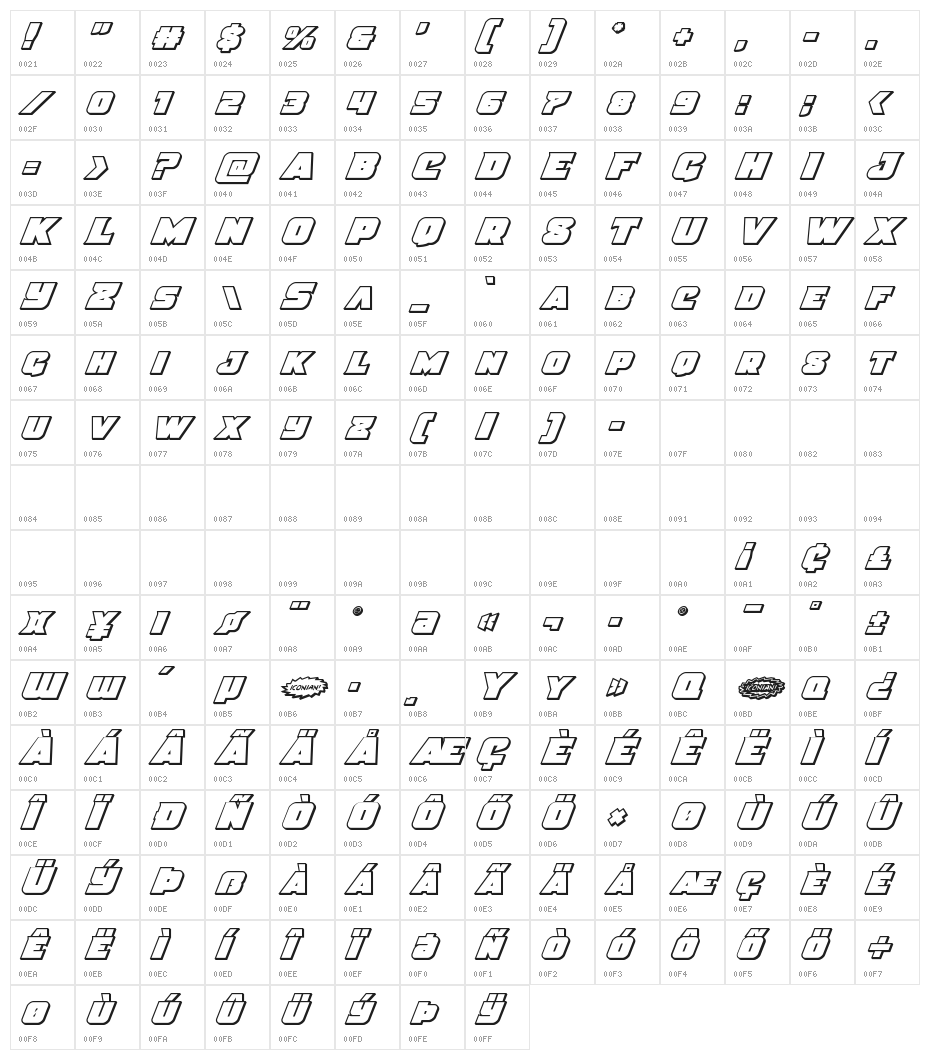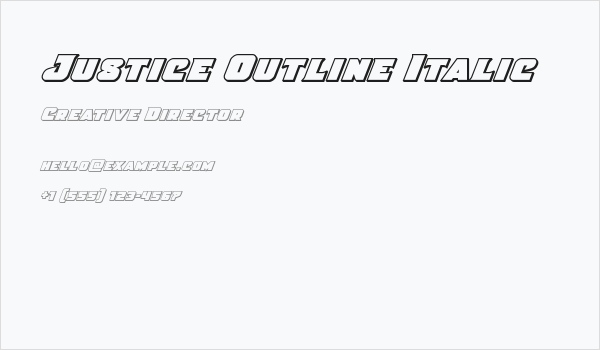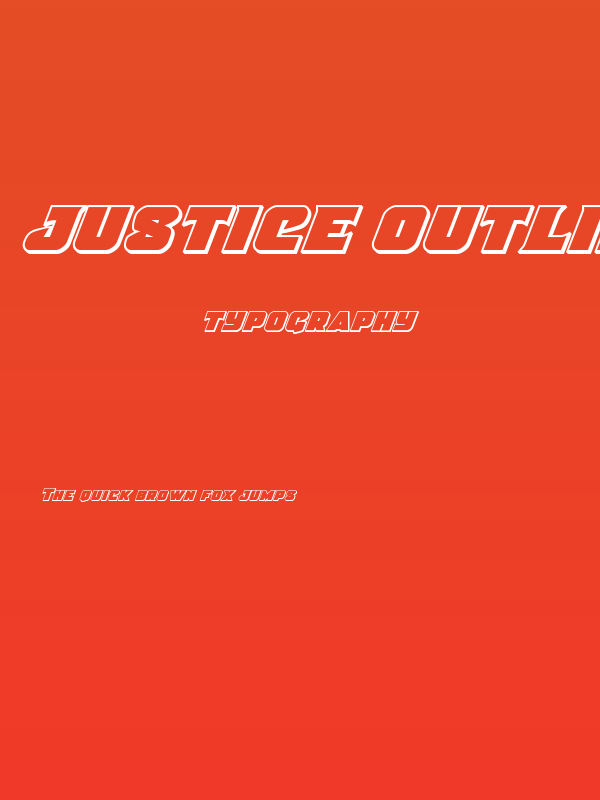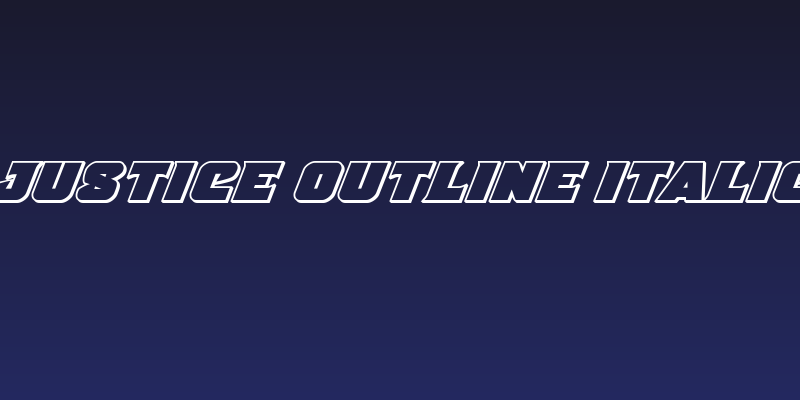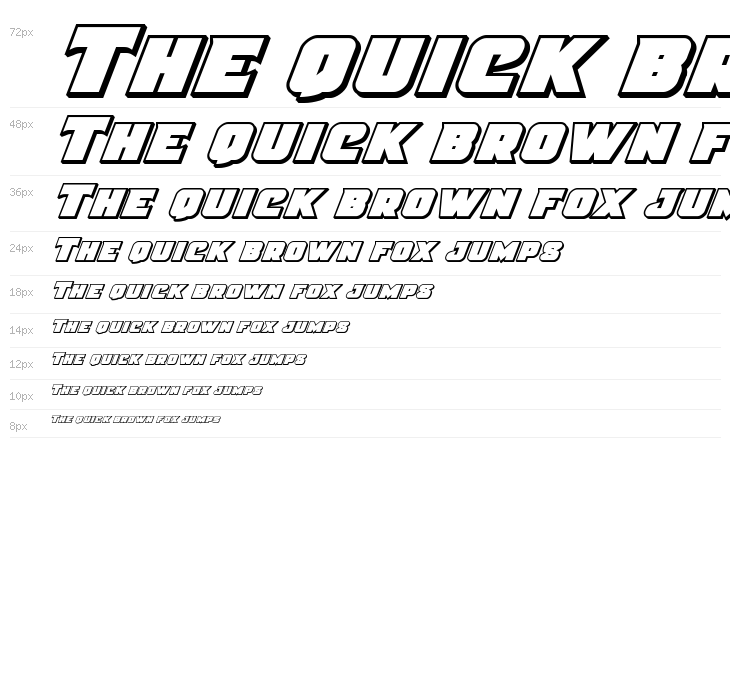
Justice Outline Italic Font
Justice Outline Italic Description
This font features a bold, italicized style with a distinctive outline that gives it a dynamic and impactful appearance. The characters are designed with a strong geometric structure, providing a sense of movement and energy. The uppercase letters are particularly striking, with sharp angles and clean lines that create a modern and assertive look. The numbers and special characters maintain this bold aesthetic, ensuring consistency across all elements. The italic slant adds a sense of urgency and forward motion, making it ideal for attention-grabbing headlines or titles.
| Proposed Projects | Ideal for sports branding, dynamic posters, video game titles, and action-themed designs. |